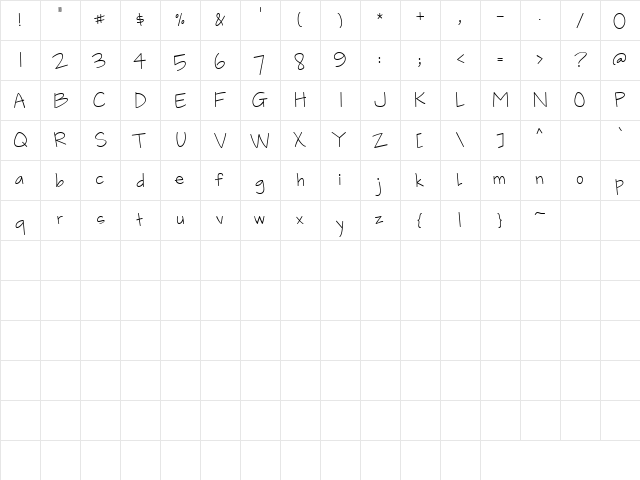
CK Penman Regular
Design Context for CK Penman Typeface
CK Penman is a composed and adaptable typeface that performs quietly and consistently across a wide range of design contexts.